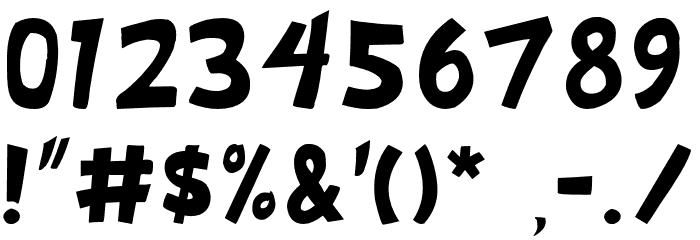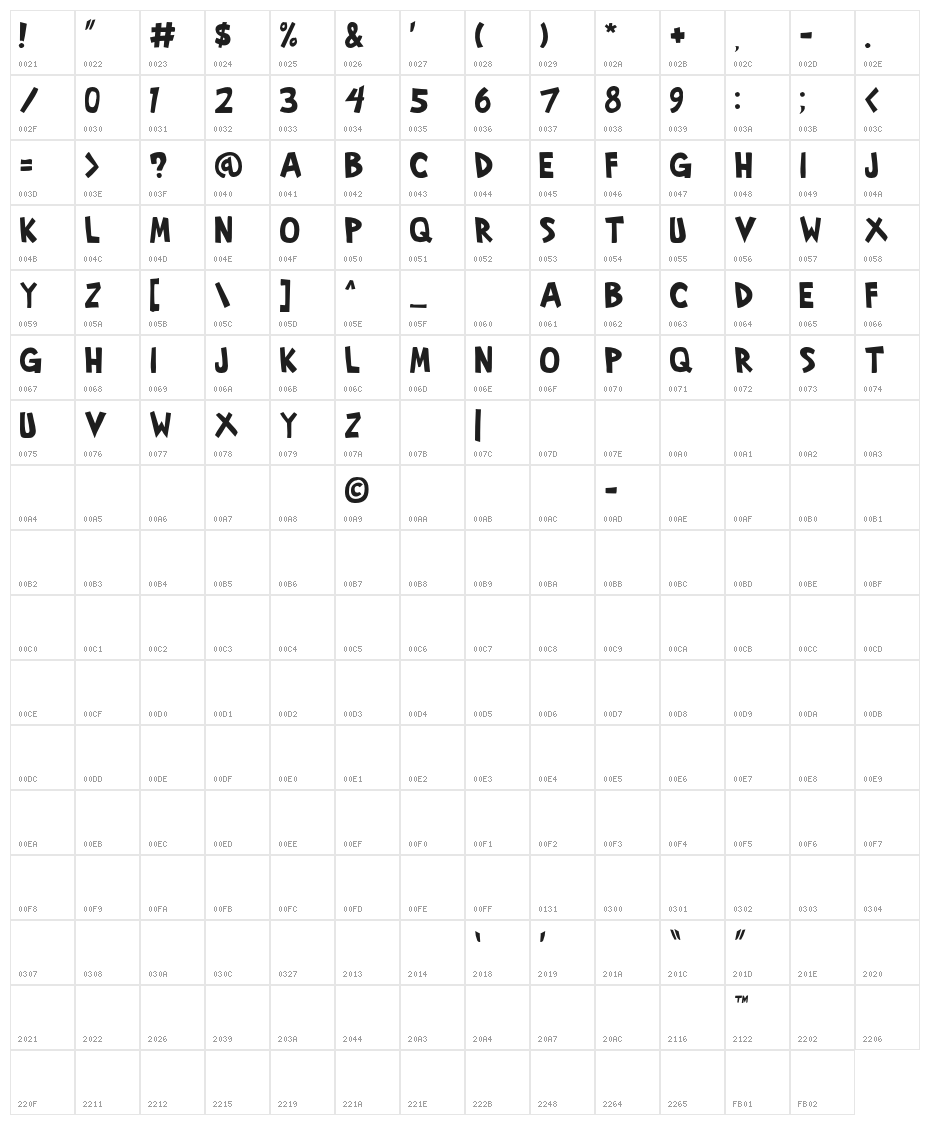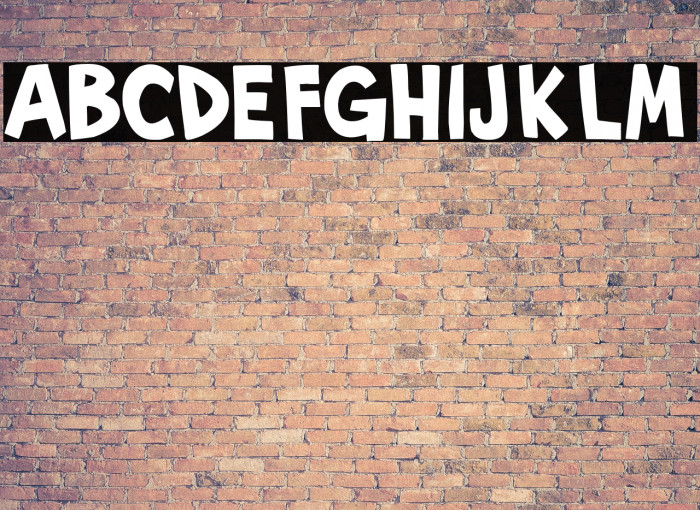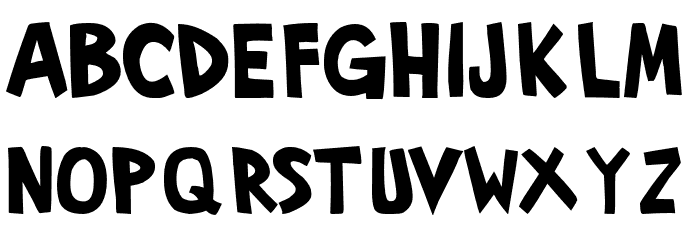
IndyEffects-Bold Font
IndyEffects-Bold Description
This bold and dynamic font features a playful and energetic style, characterized by its thick strokes and slightly irregular letterforms. The uppercase and lowercase letters maintain a consistent boldness, creating a strong visual impact. The numbers and special characters follow the same bold and lively design, making them stand out. The font's overall appearance is both modern and whimsical, suitable for projects that require a fun and engaging look. Its unique style makes it ideal for eye-catching designs.
| Overall Style | Playful, Modern |
| Proposed Projects | Perfect for children's books, comic strips, playful branding, and event posters. |